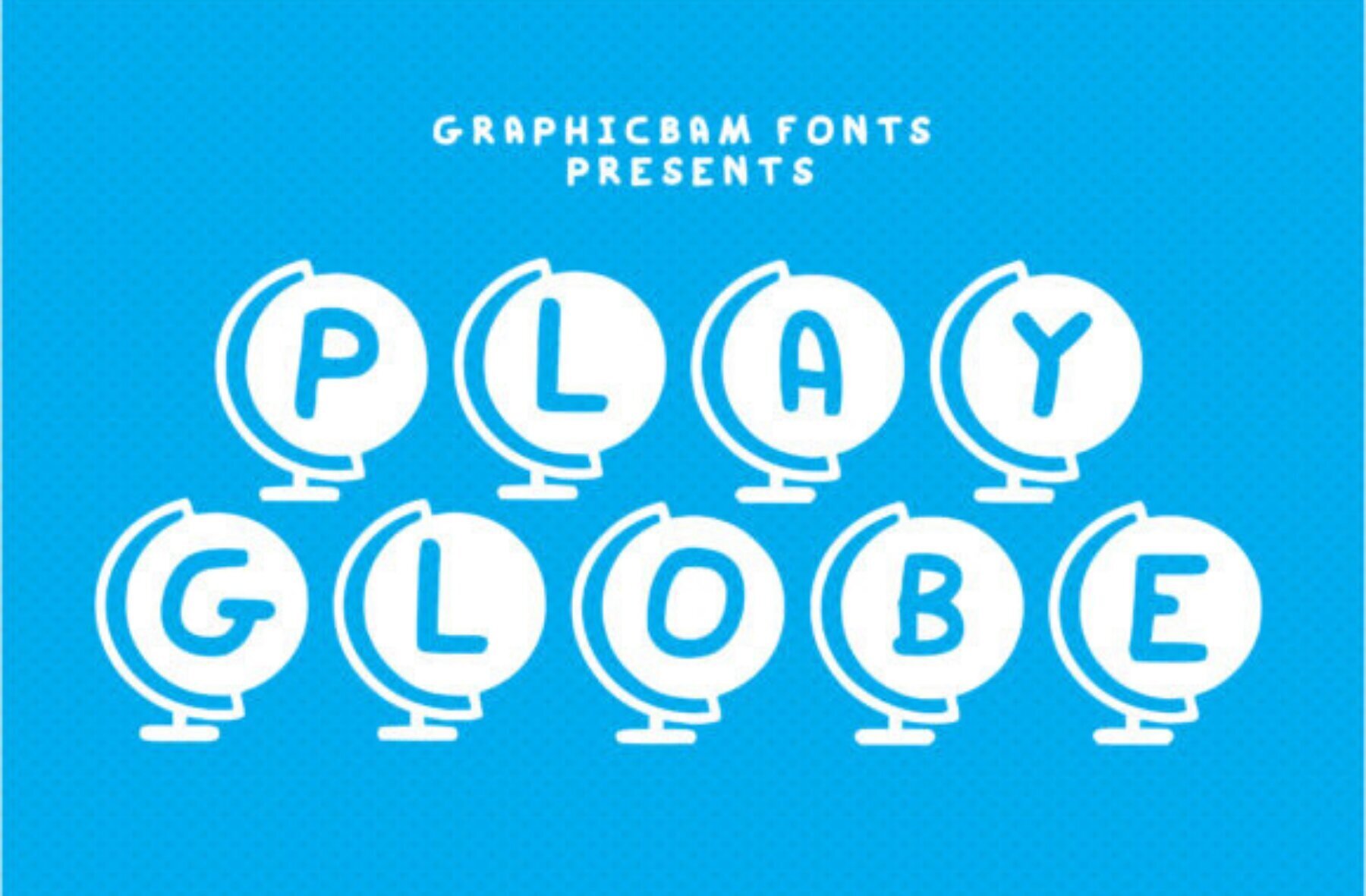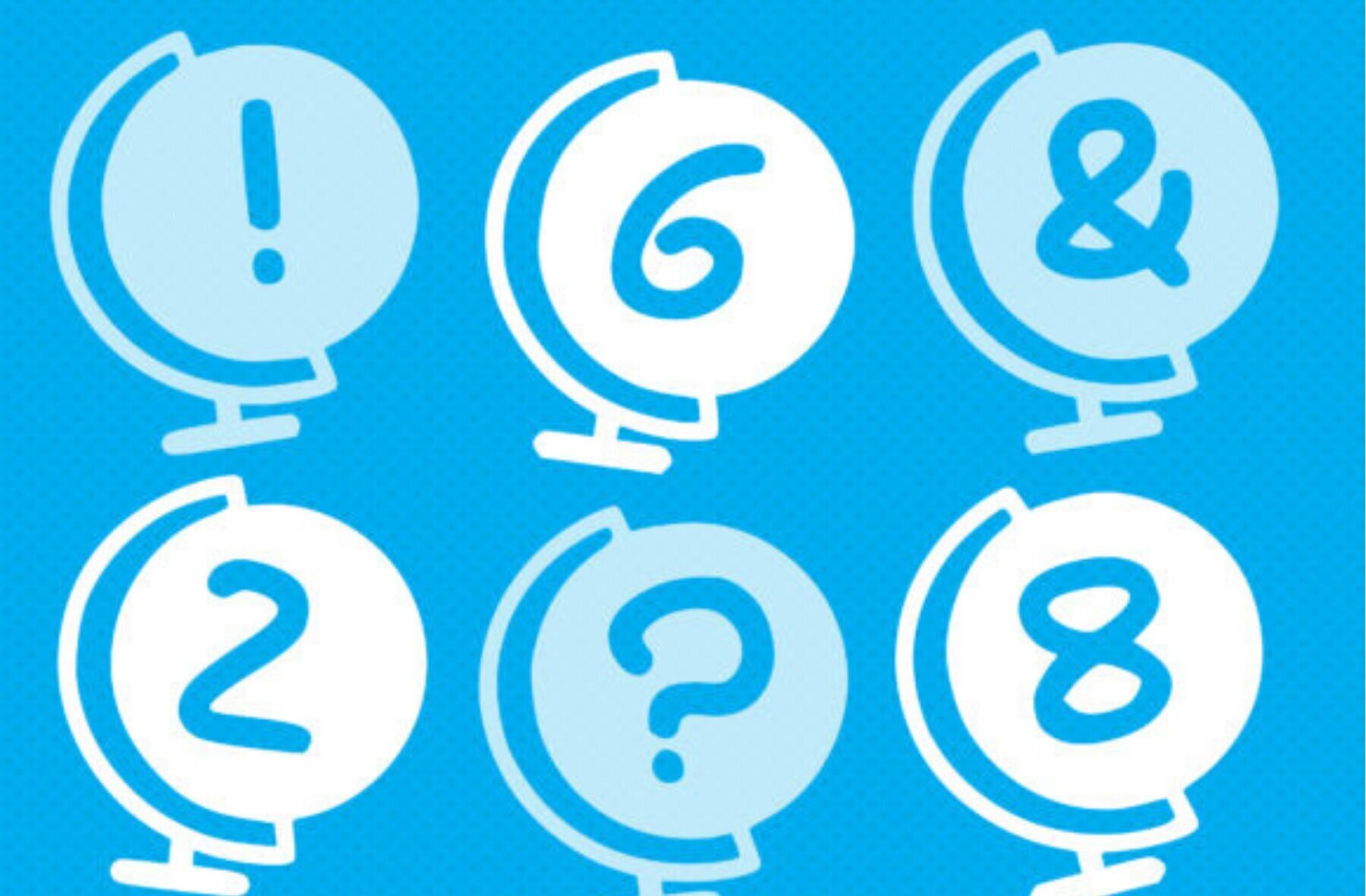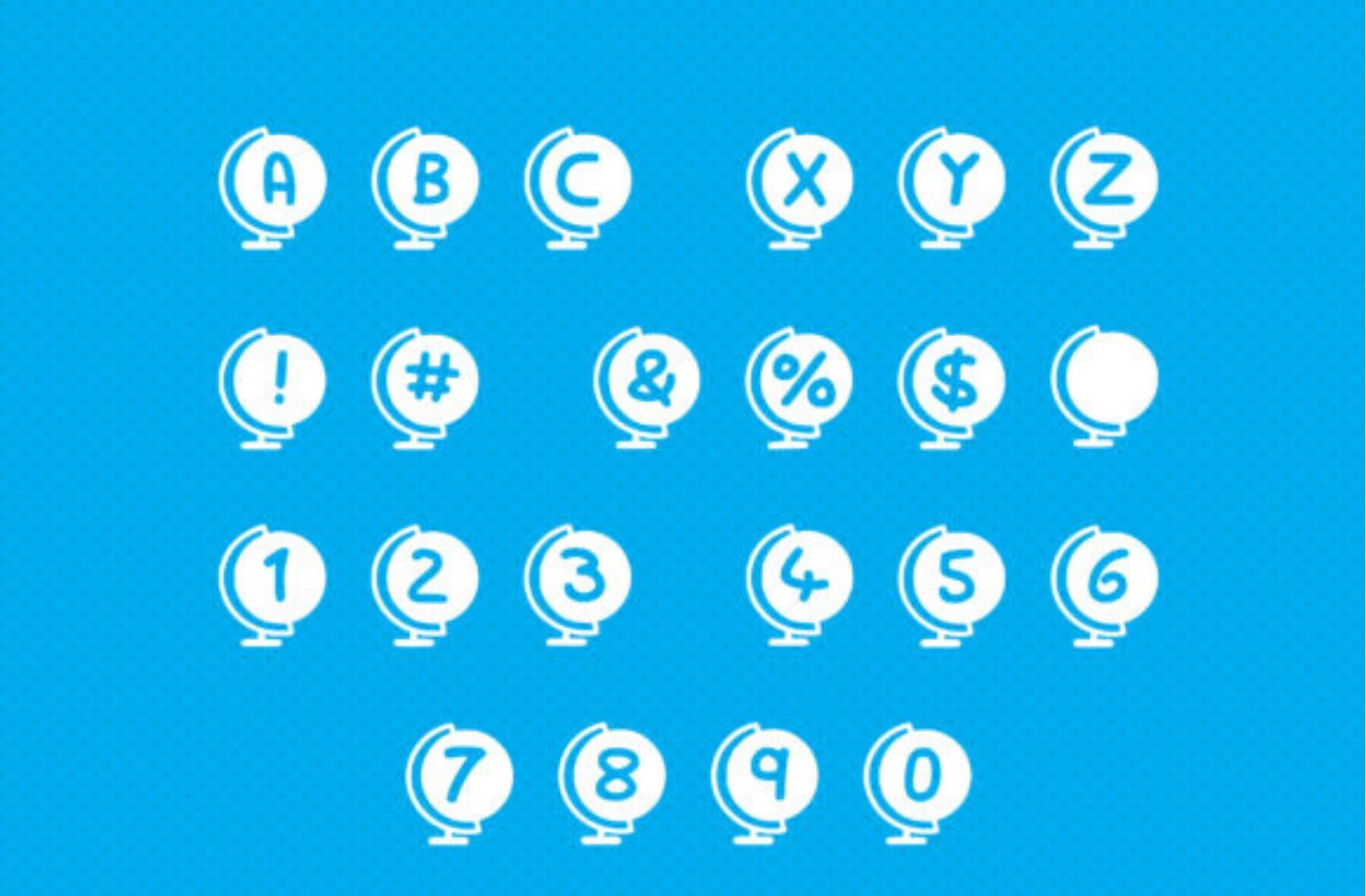
Play Globe Font
Play Globe Regular
Unleash your creativity with Play Globe, a decorative font designed to inspire! Whether you’re working on geography-related projects or looking to brand a travel agency, this versatile typeface provides endless opportunities. Its unique style is perfect for worldwide companies, engaging environmental campaigns, detailed maps, and other inventive designs.Play Globe: The Creative Decorative Font